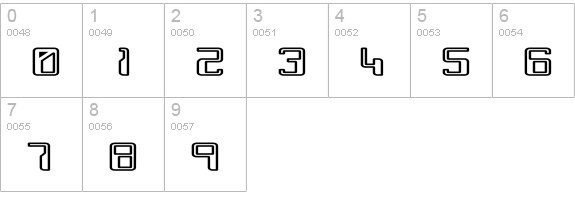
Future HE Bold is a strong, high-contrast variant in the Future typeface family \xE2\x80\x94 well suited to headlines, attention-grabbing titles, and strong calls-to-action.
The Future HE Bold font is a modern and sophisticated typeface that exudes confidence and boldness. Its sleek lines and sharp edges make it perfect for adding a futuristic touch to your designs. This versatile font is ideal for headlines, logos, posters, and any other design projects that require a strong and impactful look. What sets Future HE Bold apart is not only its striking appearance but also the fact that it is available for free download at FontsMarket.com. This means you can access this high-quality font without any cost, making it a valuable resource for designers looking to elevate their projects without breaking the bank. Don't miss out on the opportunity to enhance your designs with the sleek and stylish Future HE Bold font - get your free download today!